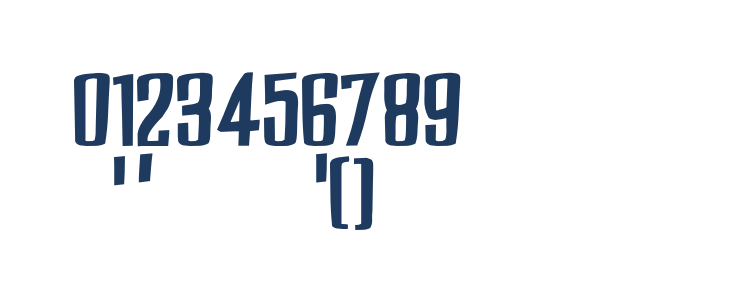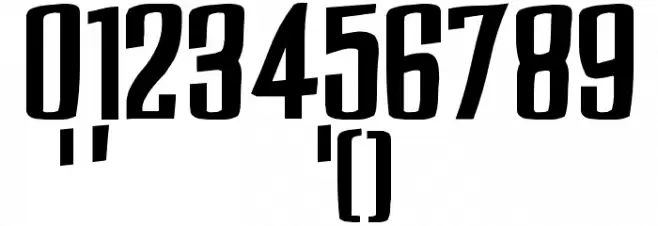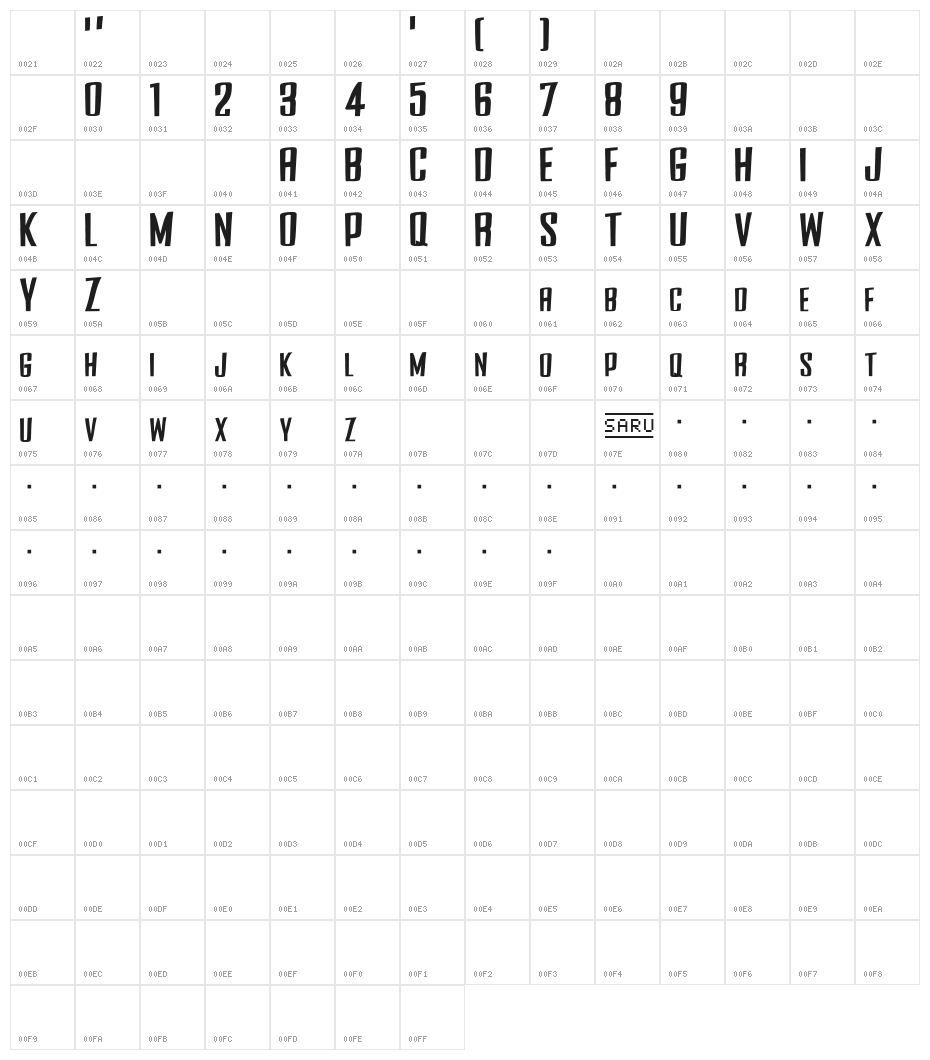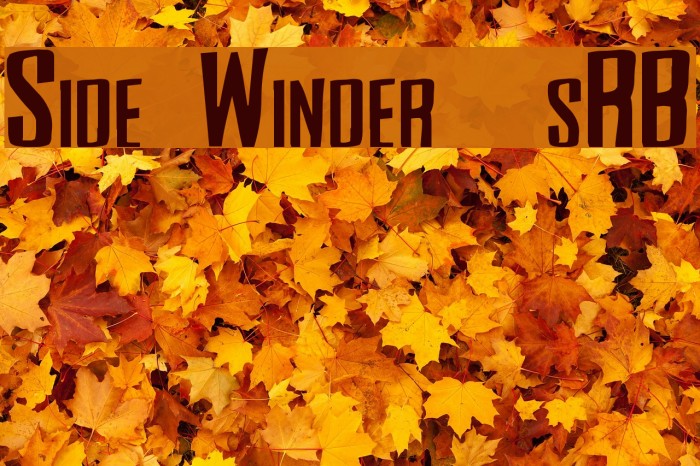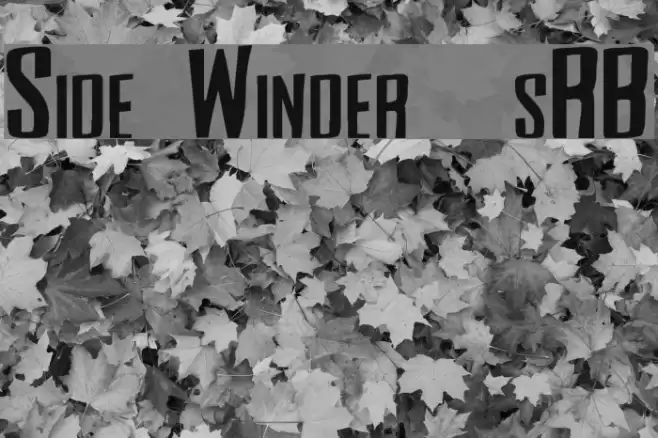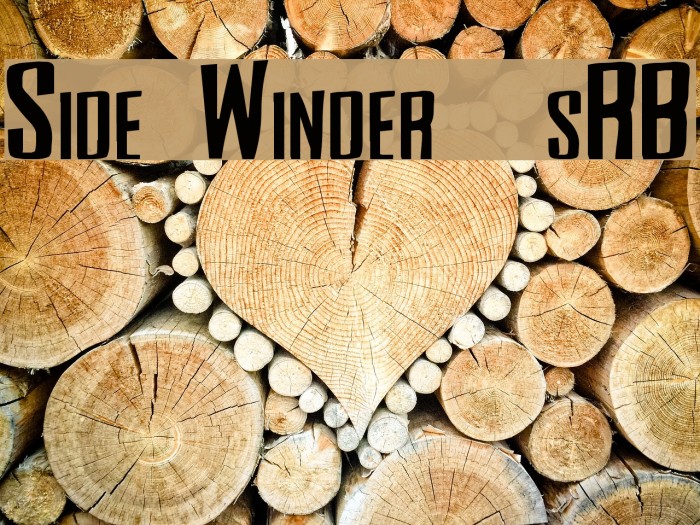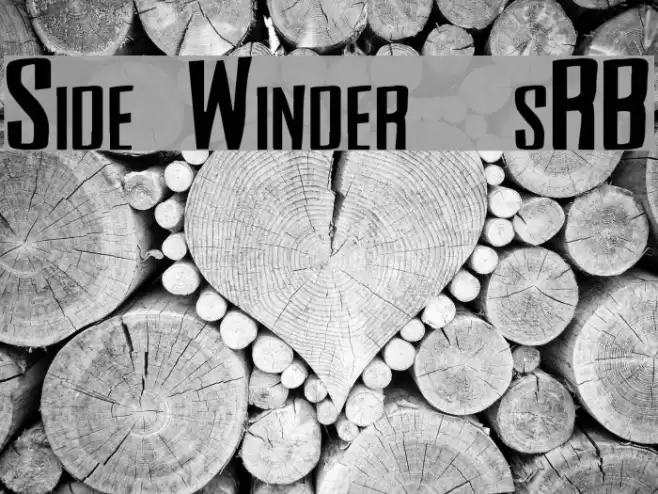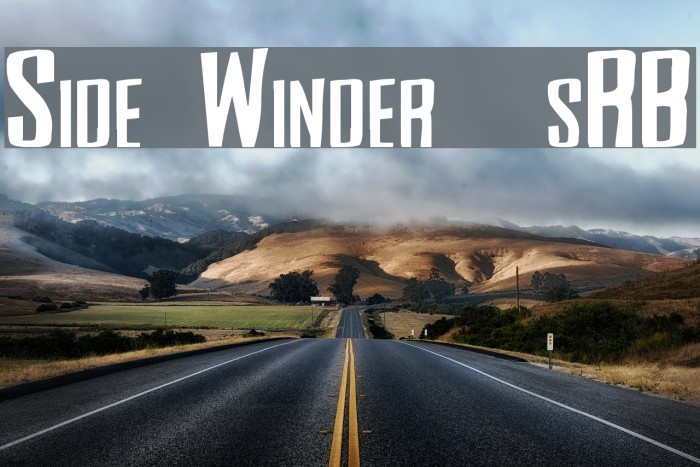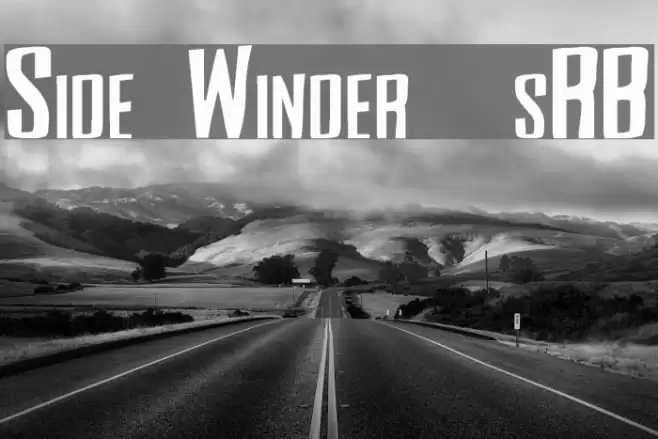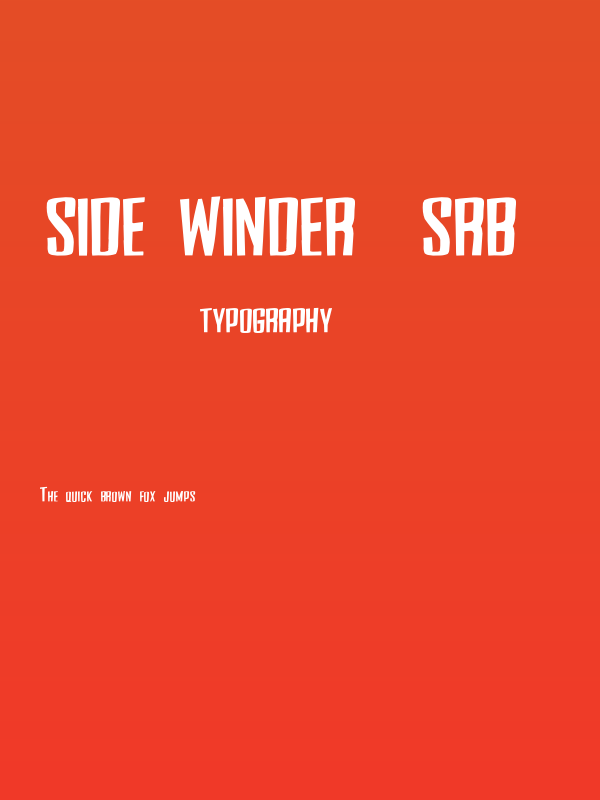
Side Winder [sRB] Font
Side Winder [sRB] Description
This font features a bold and condensed style with a distinct modern flair. The uppercase letters are tall and narrow, with slight curvature that adds a dynamic and energetic feel. The lowercase letters maintain the same condensed form, ensuring consistency across the typeface. The numbers are similarly styled, with a uniform height that aligns with the uppercase letters. Special characters are included, matching the overall aesthetic. The font's sharp edges and clean lines make it suitable for impactful designs.